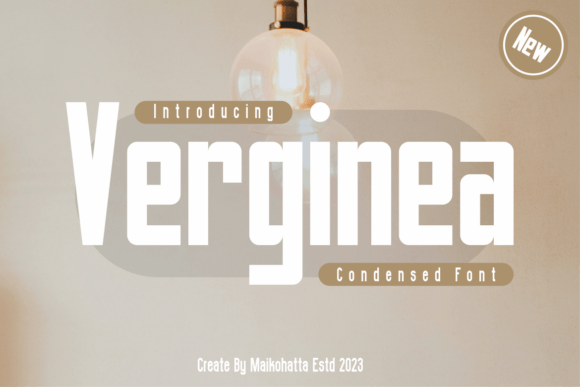
Introducing Verginea Font, the ultimate choice for captivating and attention-grabbing designs! Crafted by the talented maikofarazhatta, this display font is specifically designed to make your creations stand out from the crowd. With its narrower and slimmer letterforms, Verginea adds a touch of elegance and sophistication to any project.
Are you tired of ordinary, run-of-the-mill fonts that fail to leave a lasting impression? Look no further! Verginea Font is here to revolutionize your design game. Its condensed style sets it apart from regular or wide fonts, making it the perfect choice for various graphic designs, print materials, and other media.
One of the key advantages of using condensed fonts like Verginea is their ability to maximize space without compromising legibility. Whether you're designing a book cover, a poster, or a website banner, this font will help you make the most of every inch. Its sleek and slender letterforms allow you to fit more text, ensuring that your message is conveyed effectively.
But it's not just about functionality – Verginea Font also brings an air of elegance and sophistication to your designs. Its unique characteristics make it an exceptional choice for creating memorable logos, branding materials, and even social media posts. With Verginea, every word becomes a visual masterpiece, capturing the attention of your audience and leaving a lasting impression.
Now, let's talk about emotions. Imagine the feeling of pride and satisfaction when your design receives countless compliments and admiration. With Verginea Font, you can evoke powerful emotions and create a strong connection with your audience. Its captivating style instantly grabs attention and draws the viewer into your world of creativity.
Why settle for ordinary when you can have extraordinary? Don't let your designs go unnoticed – choose Verginea Font and unlock a world of possibilities. Whether you're a professional designer or a passionate hobbyist, this font will elevate your work to new heights.